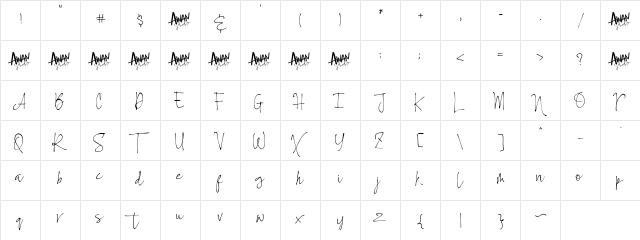
Bummill Regular
| Foundry | AwanStudio |
| Designer | Awan Setiawan |
Design Context for Bummill Typeface
Bummill is a composed and adaptable typeface that performs quietly and consistently across a wide range of design contexts.